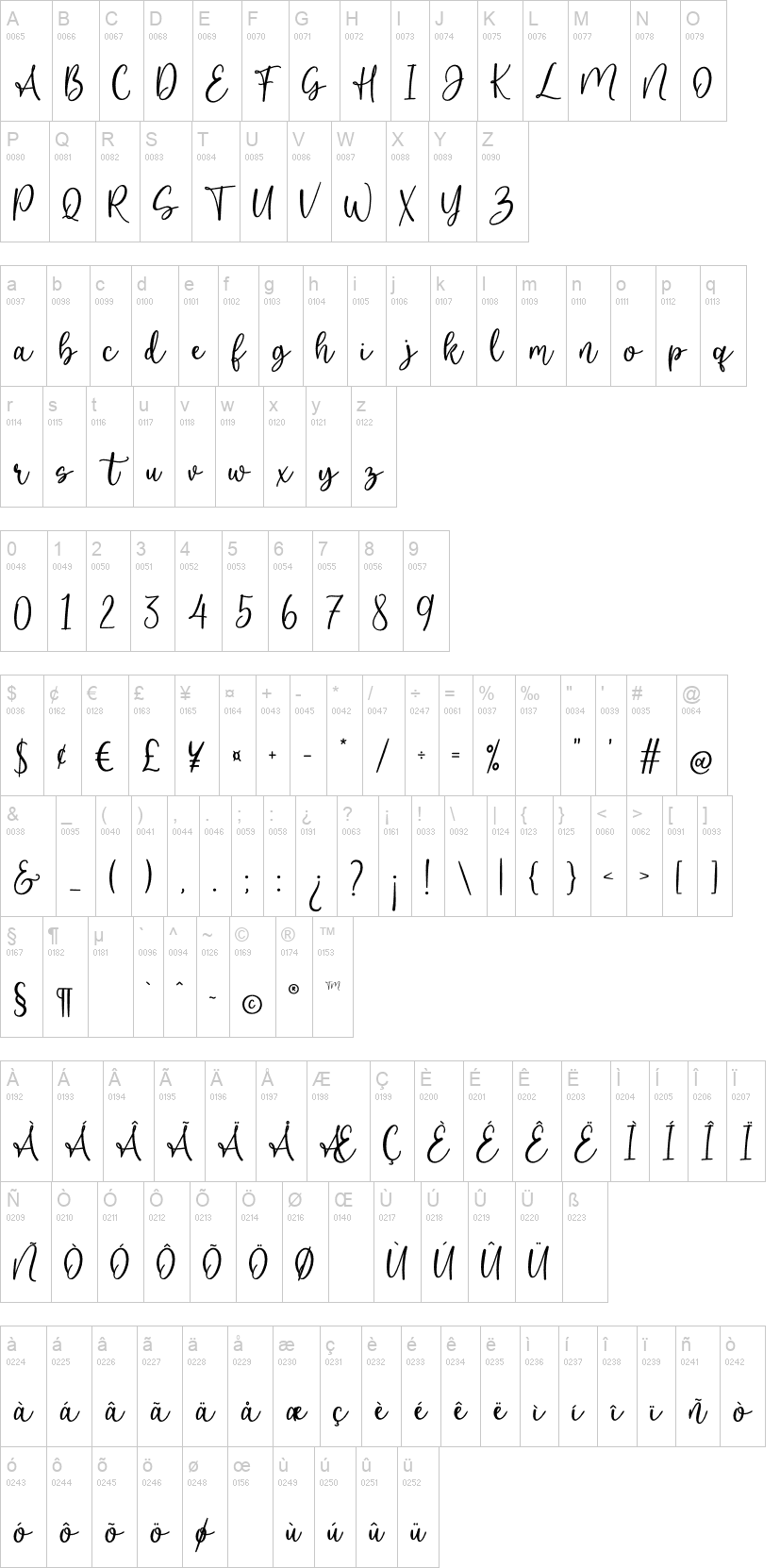
Note of the authorGoodest is a romantic and modern calligraphy font, with a beautiful touch. Its perfect for your design projects like branding, invitations, logos, quotes, titles and more.